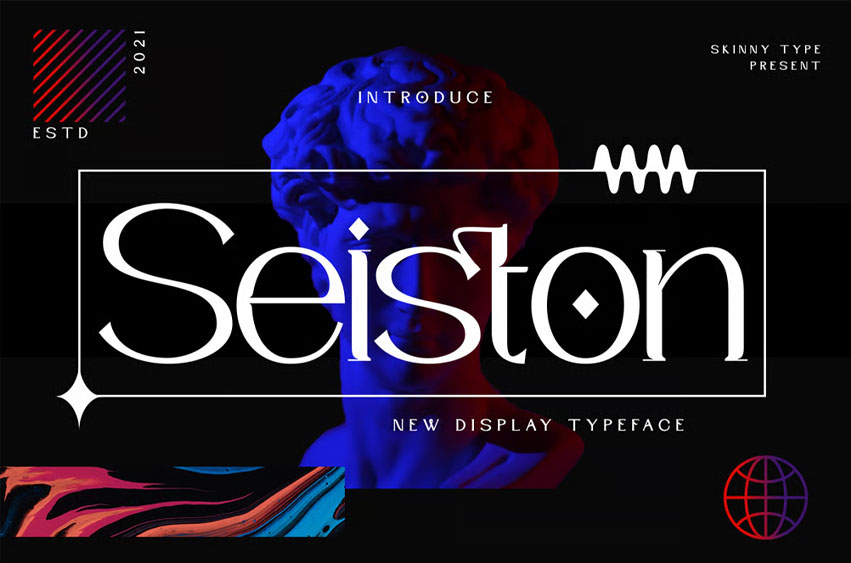
Seiston Font is the New Modern Typeface. This other Serif collection is perfect for your next branding project, great for your business. Gallient has smooth edges, so this font gives this style an authentically handcrafted feel.
Seiston is the perfect choice for people looking for a clean, modern, minimalist, elegant, and beautiful design style.
Suitable for almost any graphic design, such as logos, branding materials, business cards, gift cards, covers, thumbnails, prints, posters, photography, quotes, .etc